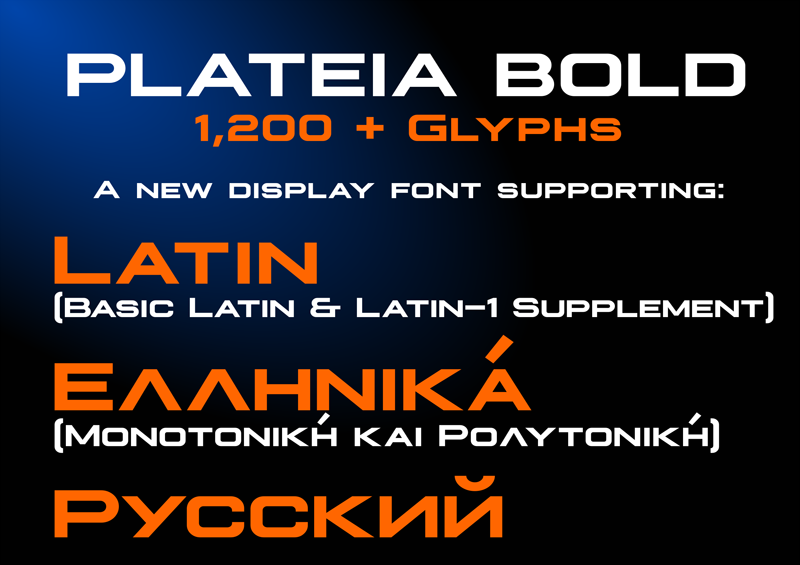
Plateia is a new font family created primarily for display purposes. I've designed 6 weights, but have so far only had the opportunity to develop the bold weight into a working font. Plateia Bold is the heaviest weight and comes with over 1,200 characters, including Latin, Latin-1 Supplement, Greek (monotonic and polytonic) and Cyrillic glyphs. The style is all-caps, with optically-adjusted small caps mapped to the lower case characters. It is offered here free for personal use. If you would like to use it for commercial purposes, please purchase a license. The cost is $5 (US) payable by clicking the 'donate' button. All feedback is welcome, especially if you spot any errors or glaring omissions. I can be contacted either privately within dafont or directly at steve@explogos.com. Thanks! |